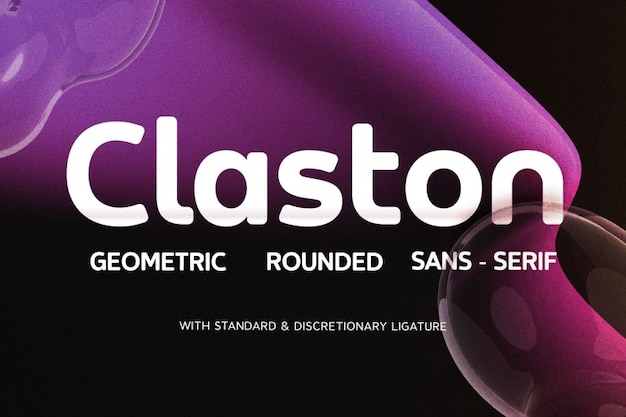
Claston
Claston Font
Drizy Studio
Claston is a captivating font that seamlessly blends geometric precision with rounded contours, striking a harmonious balance between modernity and simplicity. Its clean lines and softened edges give it a distinct charm, making it versatile for a range of design applications. Whether for branding, print, or digital media, Claston exudes a timeless appeal that captivates the eye and enhances visual communication effortlessly.